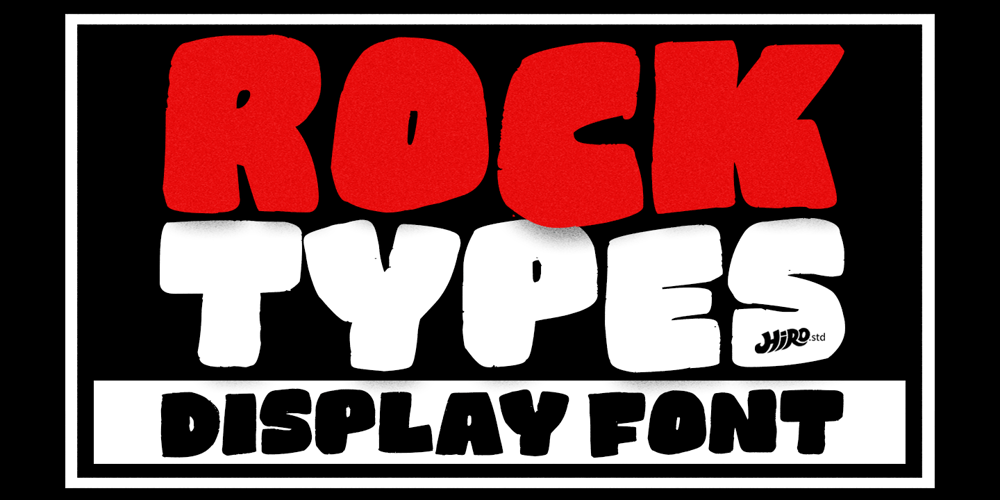
Rocktypes Font Family was designed by Chairul Ashar and published by HIRO.std. Rocktypes contains 1 styles and family package options. Rocktypes is Display Font This font describes about about strong, bold, taft, manly, hard, power, stiff, mighty, brave, gallant, rigid. FEATURES- Uppercase letters- Numbering and Punctuations- PUA Encoded Characters- Multilingual Support- Works on PC or Mac USERocktypes works great in any branding, logotype, magazines, poster, social media posts, clothing, advertisements, product packaging, product designs, label, company profile, quotes and any projects that need STRONG and BOLD taste. Enjoy using!Thanks. HIRO.std